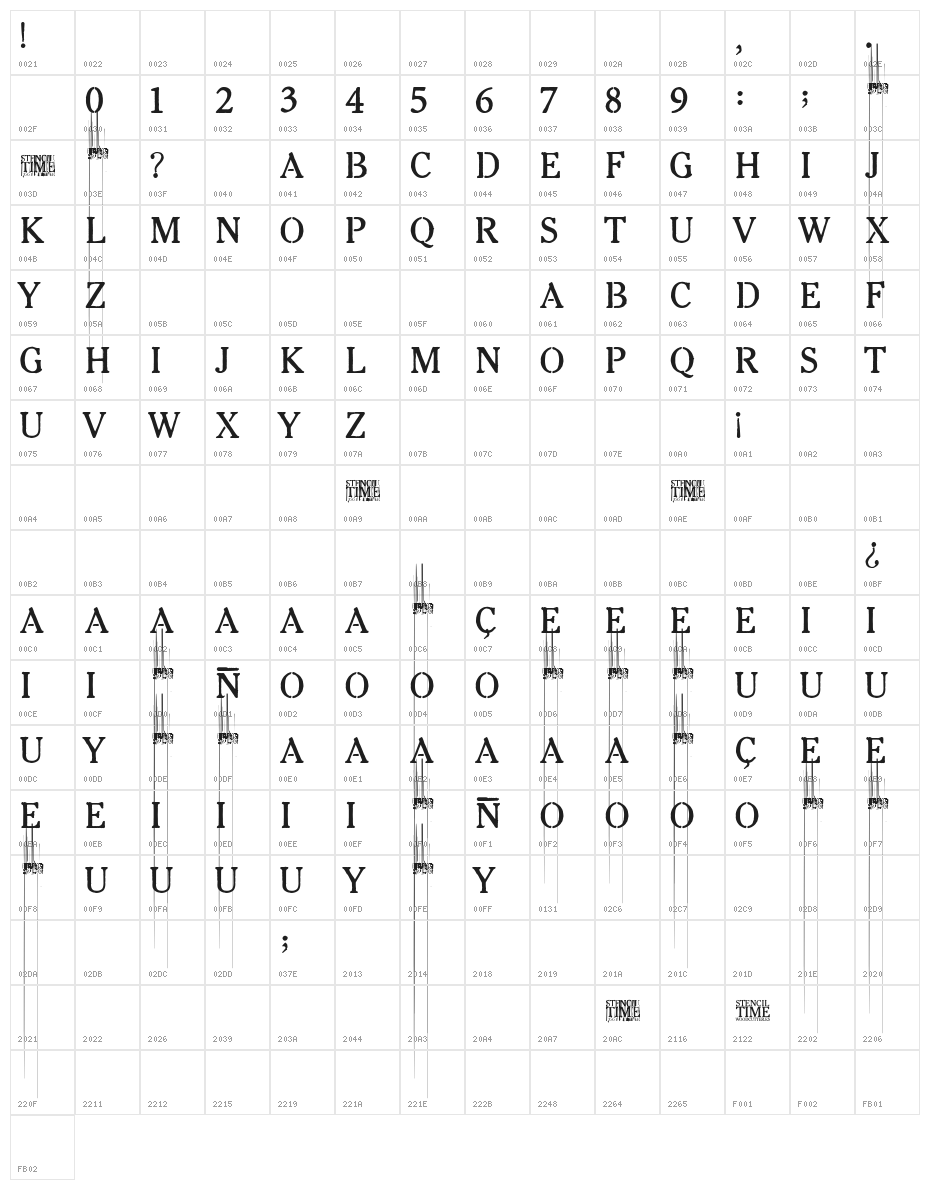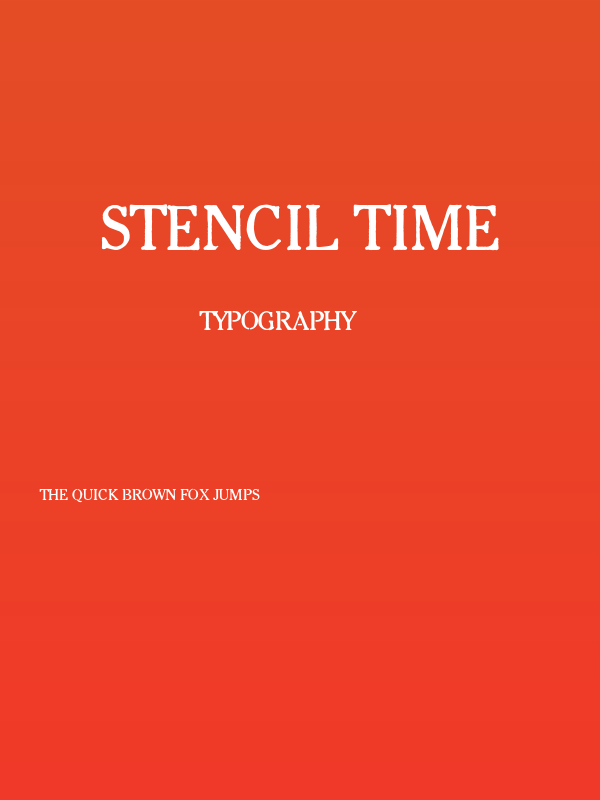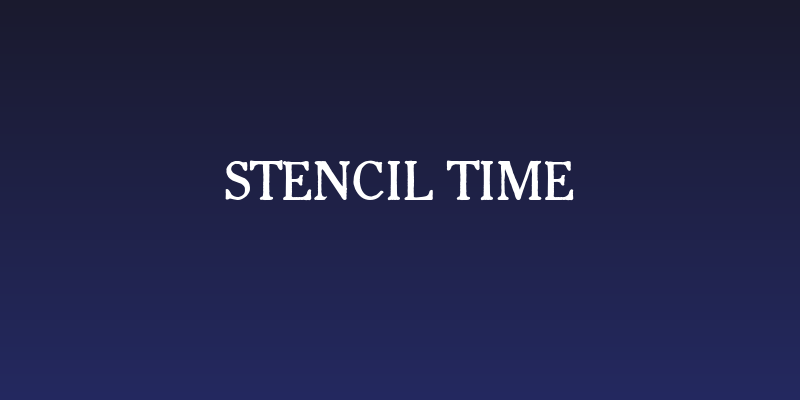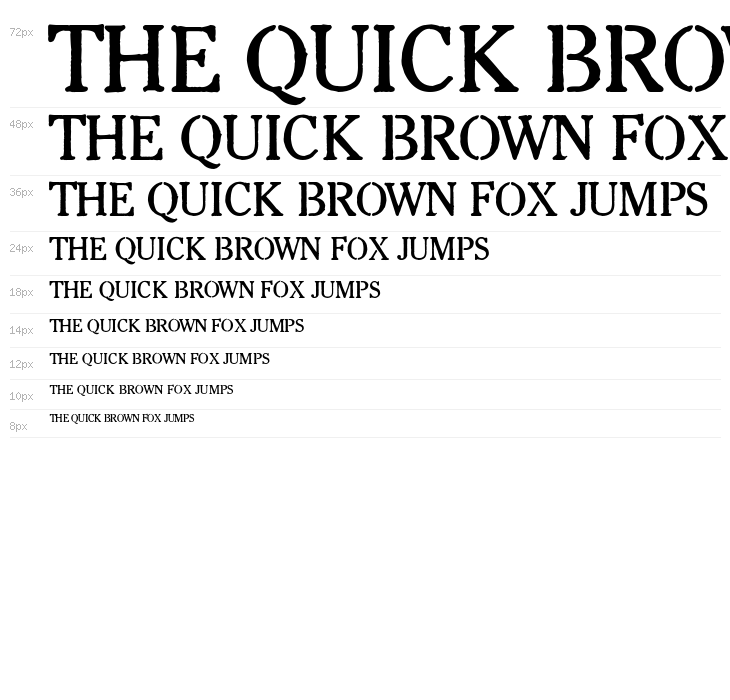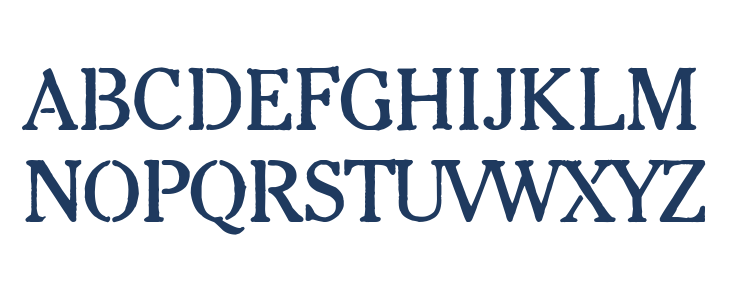
Stencil Time Font
Stencil Time Description
This font features a bold and striking stencil design, characterized by its distinct breaks in the strokes that mimic the look of traditional stenciling. The uppercase letters are robust and evenly spaced, providing a sense of uniformity and strength. The numerals are equally bold, maintaining the stencil style with clear, defined gaps. The overall appearance is industrial and utilitarian, making it ideal for projects that require a strong, impactful visual presence. The font's design is both functional and decorative, suitable for a variety of creative applications.
| Overall Style | Industrial, Decorative |
| Use Case | Headlines, Logos, Signage |
| Proposed Projects | Ideal for signage, posters, branding, and any project requiring a bold, industrial aesthetic. |